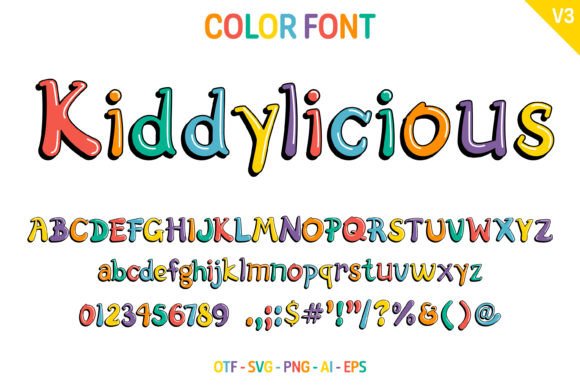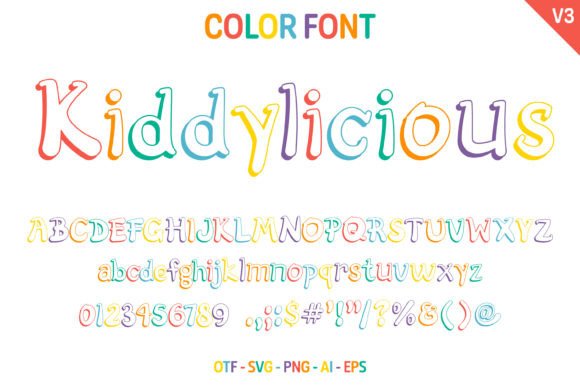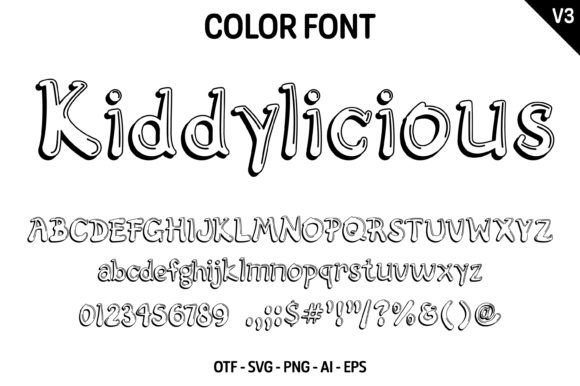
Introduction to Kiddylicious V3 Font
Kiddylicious V3 is a playful and fun color font that is perfect for designs geared toward children.
The font features rounded edges and bold weight, making it easy to read and stand out on any project Kiddylicious comes with a full set of upper and lowercase letters, numbers, and punctuation, giving you the flexibility to create a variety of designs.
Key Features of Kiddylicious V3 Font